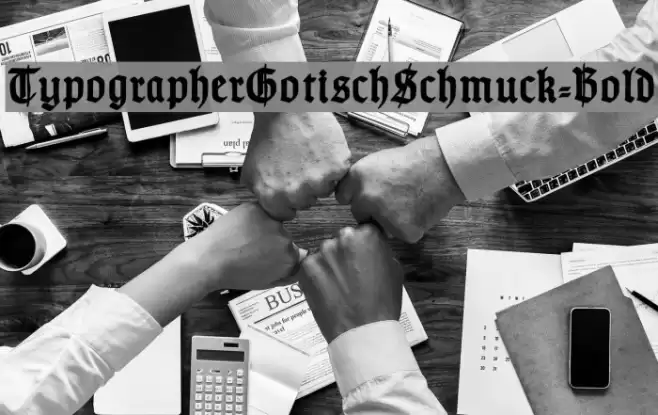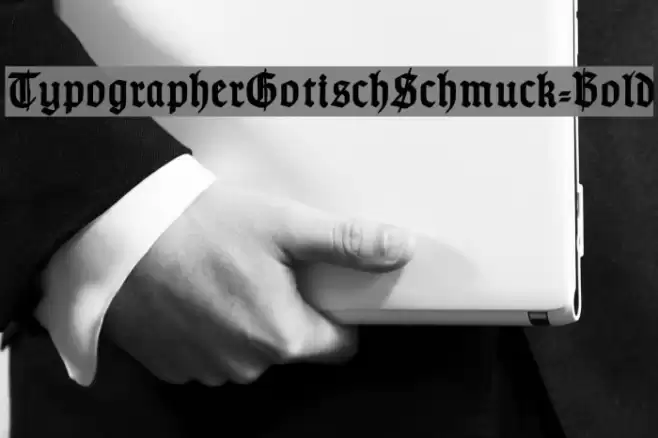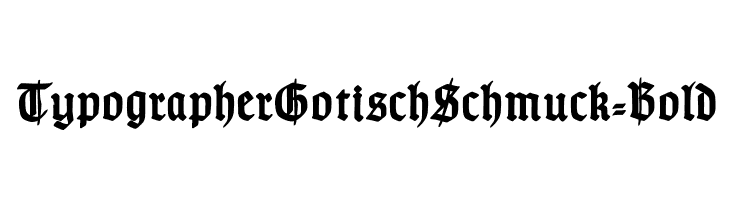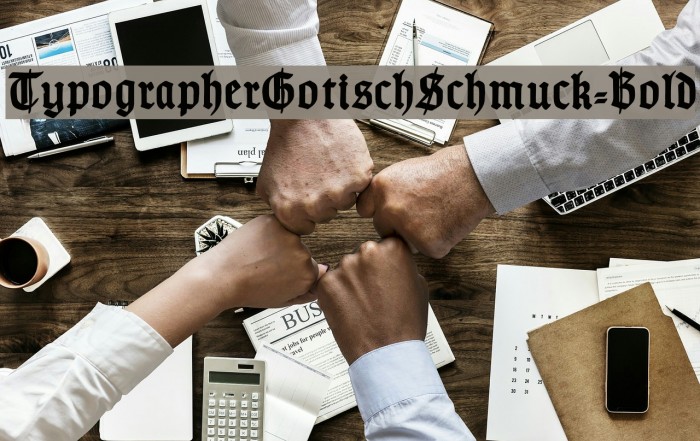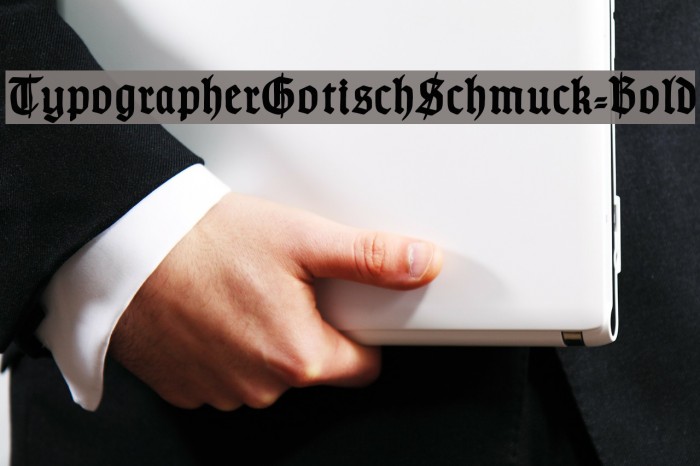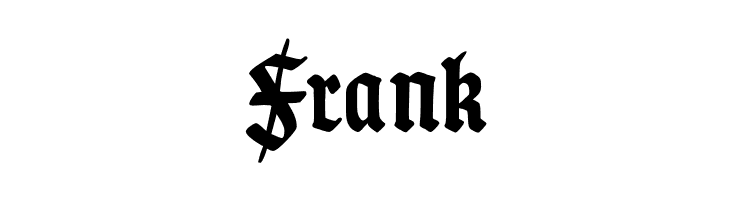
TypographerGotischSchmuck-Bold Font
TypographerGotischSchmuck-Bold Description
This font embodies the traditional Blackletter style, characterized by its intricate and ornate letterforms. Each character features sharp, angular lines and dramatic curves, reminiscent of medieval manuscripts. The uppercase letters are particularly elaborate, with decorative flourishes that enhance their gothic appearance. The lowercase letters maintain a consistent style, offering a cohesive look across the alphabet. The numerals are bold and distinct, matching the overall aesthetic. Special characters are designed with the same attention to detail, making this font suitable for projects that require a historical or dramatic flair.
A bold, gothic Blackletter font with intricate, angular designs from Uncategorized fonts.
- Proposed Projects: Ideal for historical documents, gothic-themed designs, book covers, and event posters.
- Overall Style: Vintage
- Use Case: Logos, Headlines, Decorative text